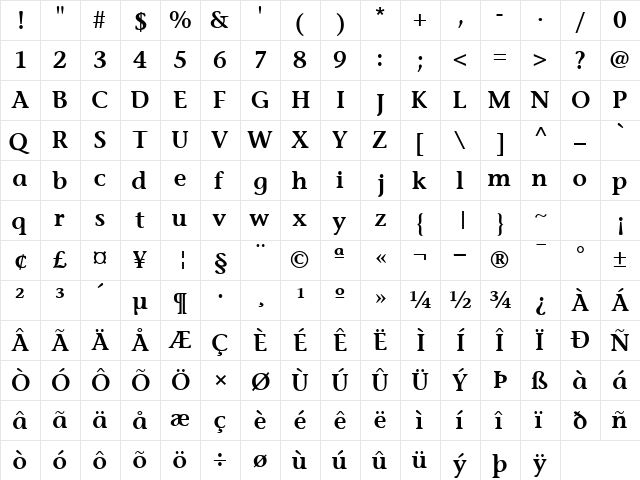
MesouranCasualSSK SemiBold
Design Context for MesouranCasualSSK Typeface
MesouranCasualSSK is a composed and adaptable typeface that performs quietly and consistently across a wide range of design contexts. Its bold stroke weight gives it real presence on the page.